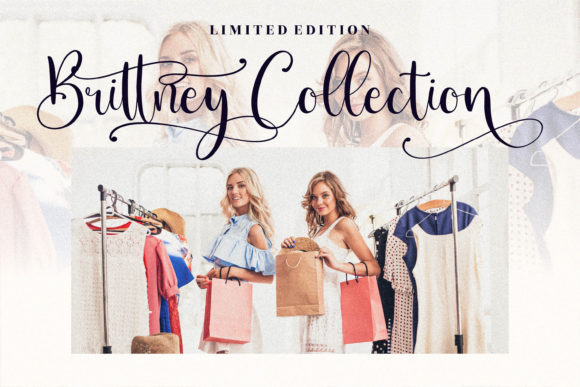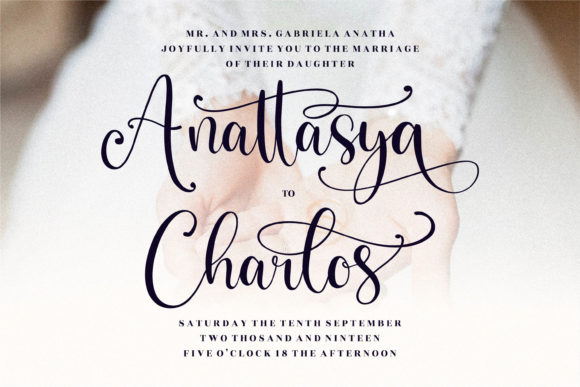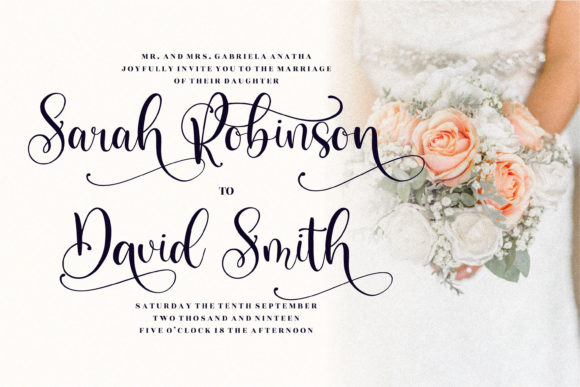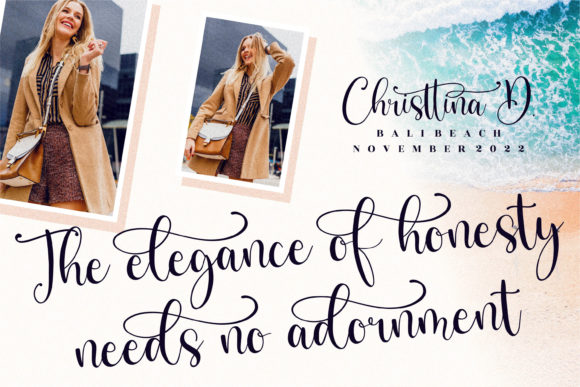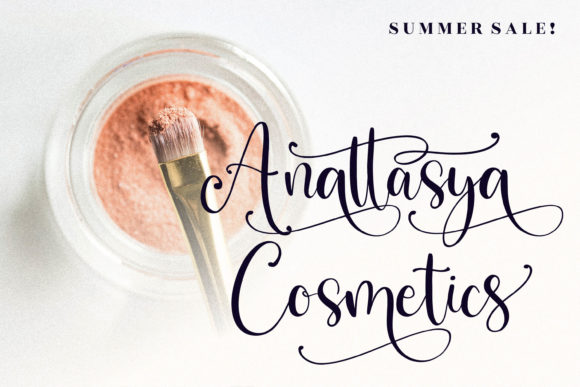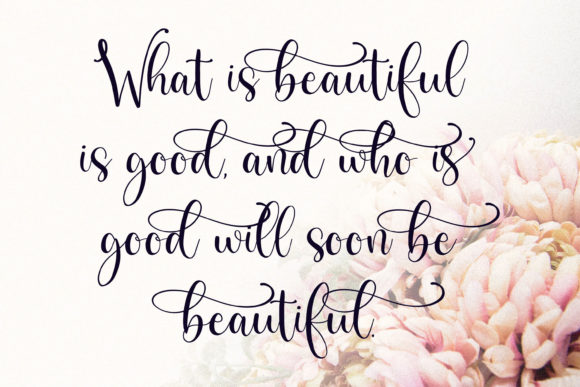
The Perfect Script for Your Next Masterpiece
As designers, we’ve all been there – staring at a blank canvas, waiting for the perfect font to bring our vision to life. It’s that moment when everything clicks, and the words start flowing. For me, it was when I stumbled upon the enchanting Benttaria Delissha Font, a romantic script that stole my heart.
This lovely font is a treasure trove of marvellous characters, each one meticulously crafted to evoke a sense of elegance and sophistication. Whether you’re creating a wedding invitation, a birthday card, or an exquisite marketing campaign, Benttaria Delissha Font is the perfect companion to help you bring your ideas to life. Its versatility and charm make it a valuable asset for any designer looking to add a touch of class to their projects.
Benttaria Delissha Font Key Features
- Font Family: Benttaria Delissha
- Unique Characteristics: Elegant, cursive script with a touch of whimsy, suitable for invitations, wedding stationery, and other formal events.
- Character Count: 1000+ glyphs, including Latin, Cyrillic, and Greek alphabets
Benttaria Delissha Font Review
Overall, I think the Benttaria Delissha font has some great qualities that make it a solid choice for designers. ✨ Here are a few things that stand out:
- Unique and elegant style: The font has a distinctive, hand-drawn feel that adds a touch of sophistication to any design.
- Good legibility: Despite its ornate appearance, the font is still easy to read, even at smaller font sizes.
- Wide character set: The font includes a wide range of characters, including Latin, Greek, and Cyrillic scripts, making it a great choice for multilingual designs.
However, there are also some limitations to consider. ⚠️ Here are a few things to keep in mind:
- May not be suitable for bold or condensed text: The font’s elegant style can sometimes make it look a bit too delicate for bold or condensed text.
- May require some manual adjustments: Depending on the design, you may need to make some manual adjustments to get the font to look its best.
Overall, I think the Benttaria Delissha font is a great choice for designers who want to add a touch of elegance and sophistication to their designs. With a little bit of care and attention, it can be a real showstopper.
For best results, use Benttaria Delissha Font in combination with a clean and minimalist design template.
For best results, use Benttaria Delissha Font in combination with a bold and modern design style.
For best results, use Benttaria Delissha Font in combination with a clean and professional design template.
Benttaria Delissha Font is ideal for use in:
1. Modern branding and logos.
2. Fashion and beauty design.
3. Minimalist business cards and brochures.
4. Creative and artistic projects.
Alternatives to Benttaria Delissha Font
Great Vibes is a beautiful, elegant script font that’s perfect for wedding invitations, event promotions, and other occasions where a touch of sophistication is needed. It has a more refined and delicate feel compared to Benttaria Delissha Font, which is bolder and more playful.
Alex Brush is a stylish, handwritten font that’s ideal for creative projects, branding, and editorial design. It has a more subtle and understated feel compared to Benttaria Delissha Font, which is bolder and more eye-catching. Alex Brush is a great choice for designers who want a more refined and elegant look.
Carolyna Pro is a modern, elegant script font that’s perfect for luxury brands, fashion designers, and high-end marketing materials. It has a more sleek and sophisticated feel compared to Benttaria Delissha Font, which is bolder and more playful. Carolyna Pro is a great choice for designers who want a high-end, luxurious look.
Loisha Script
Loisha Script is a beautiful, elegant script font that’s perfect for creative projects, branding, and editorial design. It has a more delicate and refined feel compared to Benttaria Delissha Font, which is bolder and more playful. Loisha Script is a great choice for designers who want a touch of elegance and sophistication in their designs.
For optimal readability, we recommend using a font size between 12 and 14 points, with a line height of at least 1.5 times the font size. This will provide a clear and comfortable reading experience for your audience.